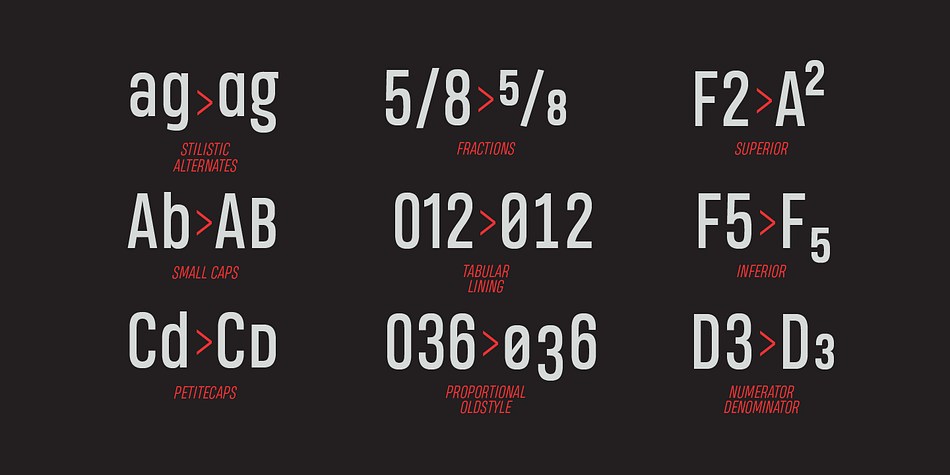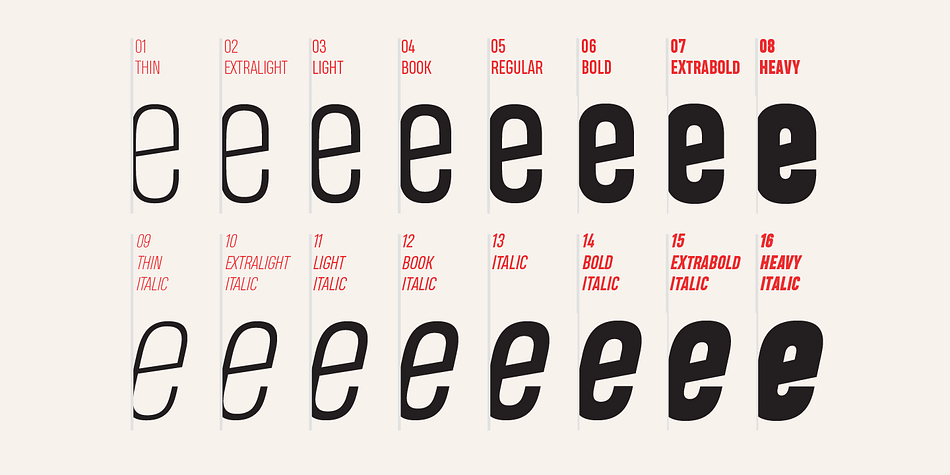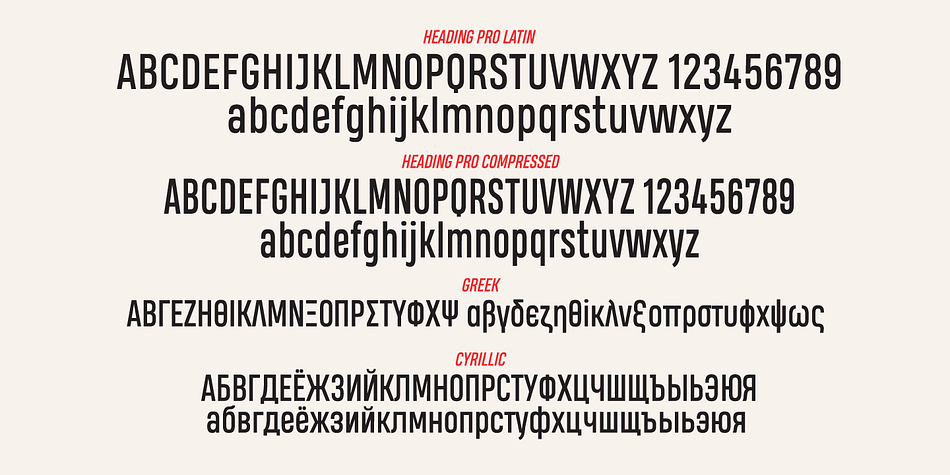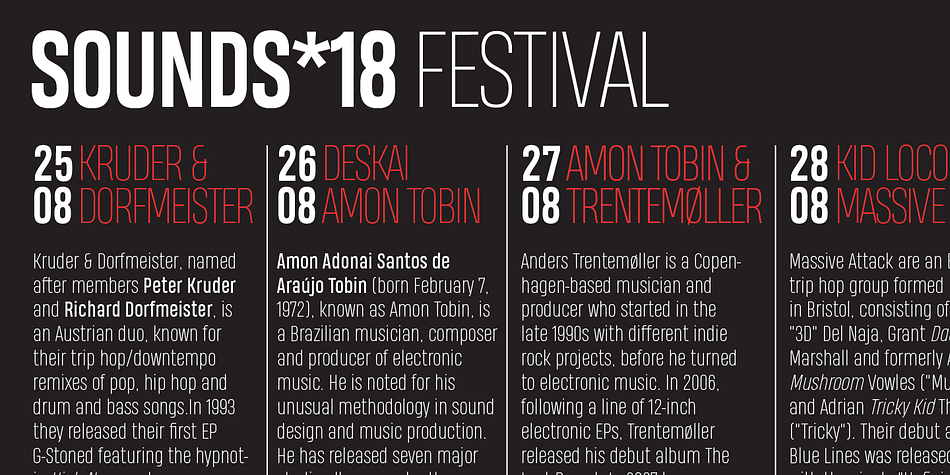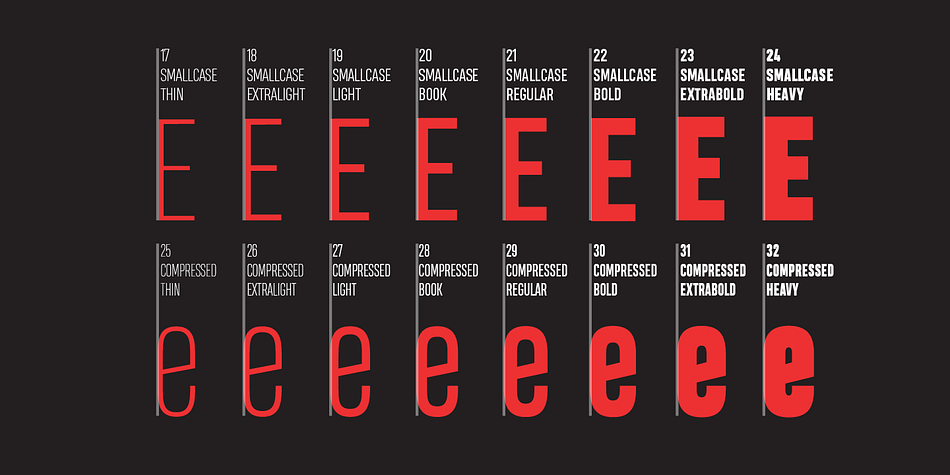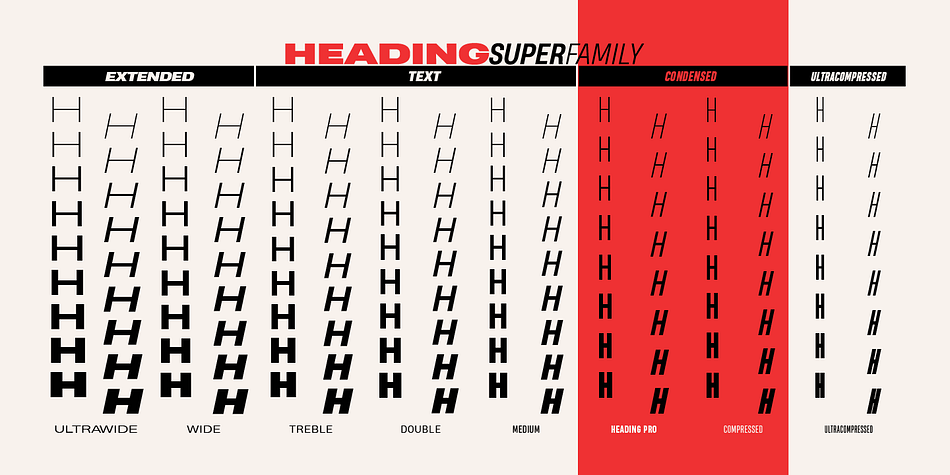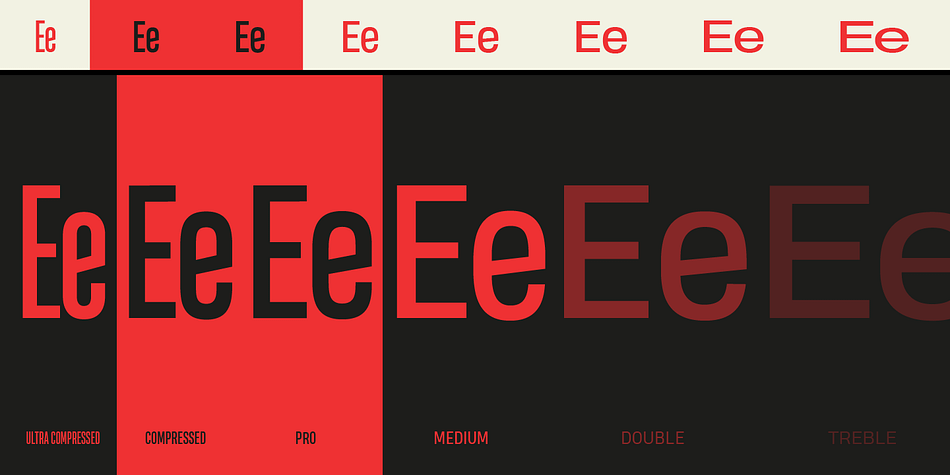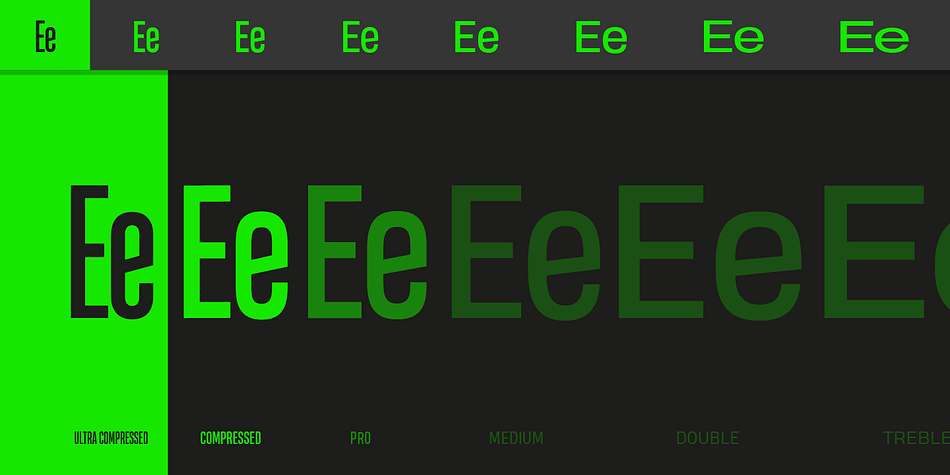
Designed by Francesco Canovaro, Heading Pro is a sans serif font family. This typeface has thirty-two styles and was published by Zetafonts.
Heading Pro is a typeface family designed by Francesco Canovaro for Zetafonts. It’s a geometric condensed typeface with high legibility and a powerful personality, created to optimize space on the printed page and on the screen.
Heading Pro, coming in eight weights and matching italics, is designed to excel in titles and subheadings, timetables, name and credit lists and cases of exuberant and excessive copywriting.
The family also includes a Small Caps variant, with a larger x-height than the standard Petite Caps, and a Compressed variant, both available in eight weights from thin to heavy, for a total of 32 weights. It covers over forty languages using the Latin alphabet, as well as Greek and Russian Cyrillic.
Designer | Francesco Canovaro |